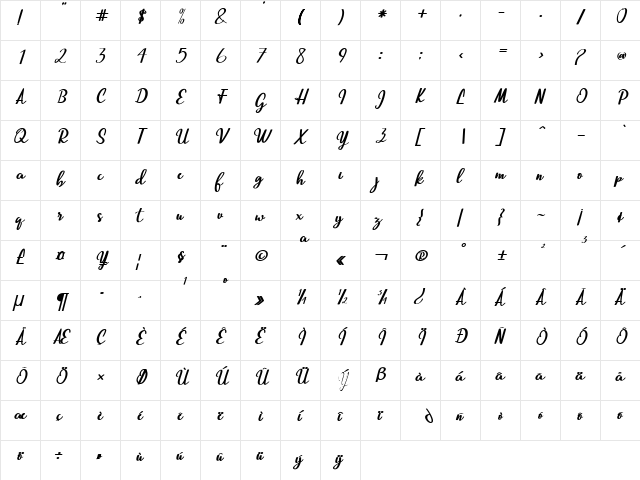
Beautiful Script script
| Style | script |
| Foundry | mrletters_Muhammad Rizal |
| Designer | mrletters_Muhammad Rizal |
Design Context for Beautiful Script Typeface
Beautiful Script flows with the natural rhythm of handwritten lettering, making it ideal for designs that call for warmth and personal expression.
Font Pairing: Combine Beautiful Script with a simple geometric sans for maximum contrast — the tension between flowing curves and clean structure is a classic typographic pairing.
Pro Tip: Use Beautiful Script for short runs of text — names, titles, or taglines. Extended body copy in script faces tires the eye quickly.